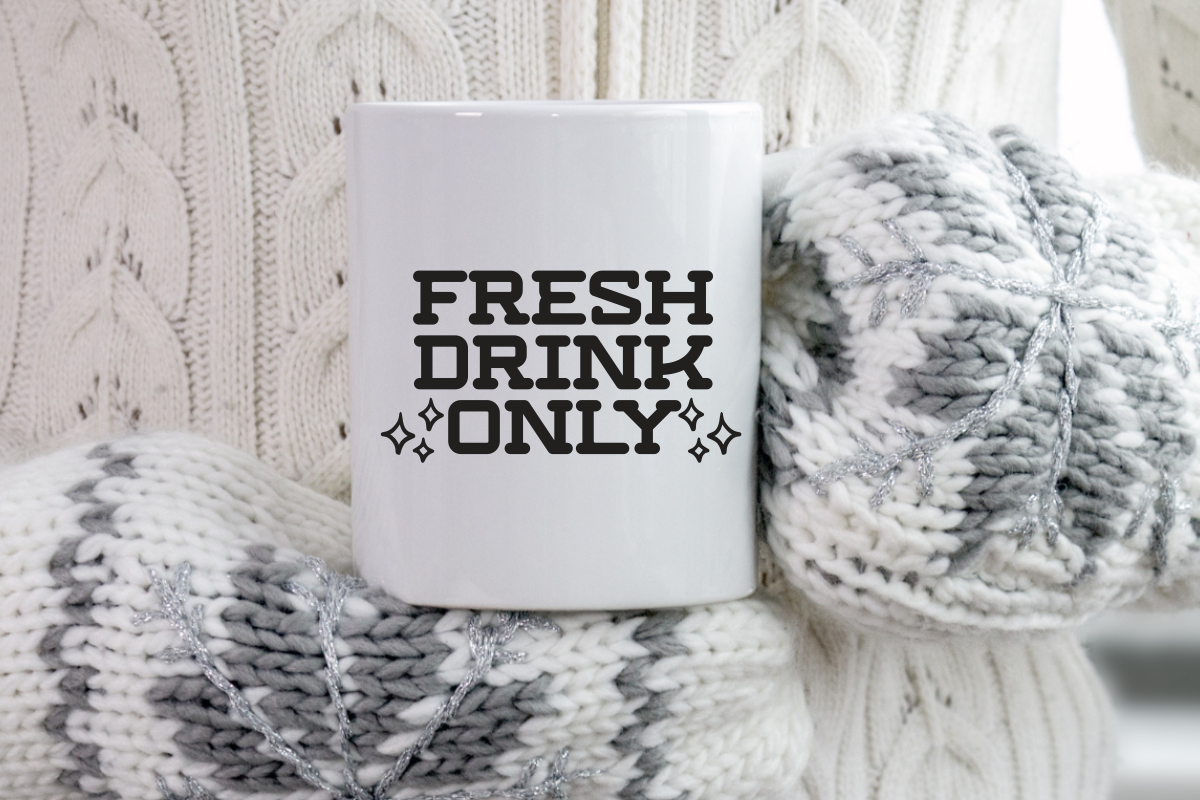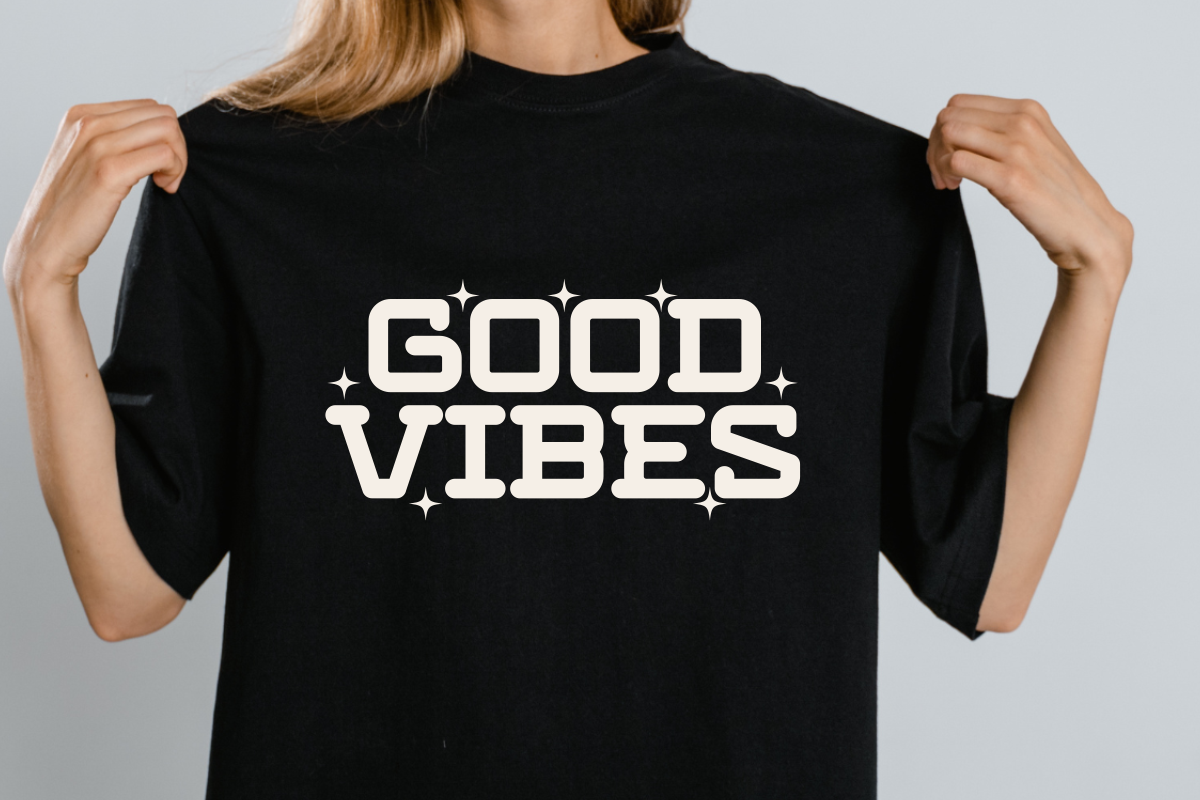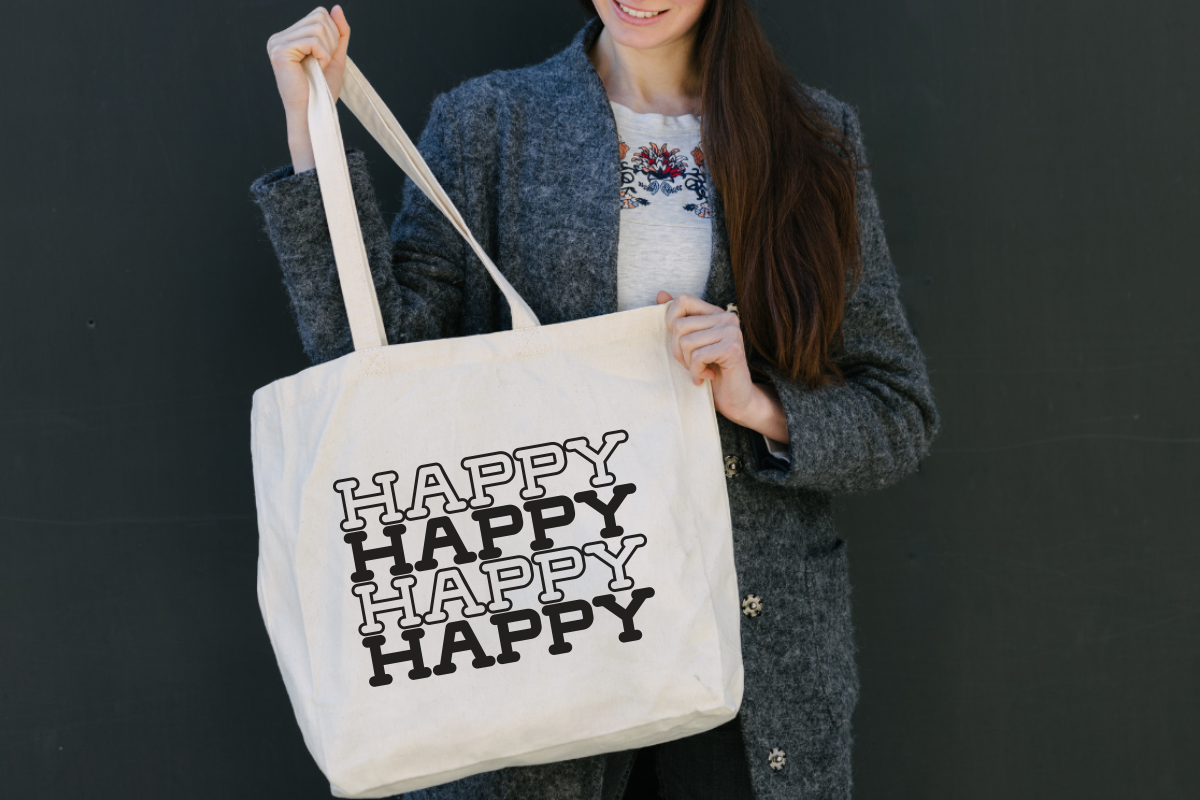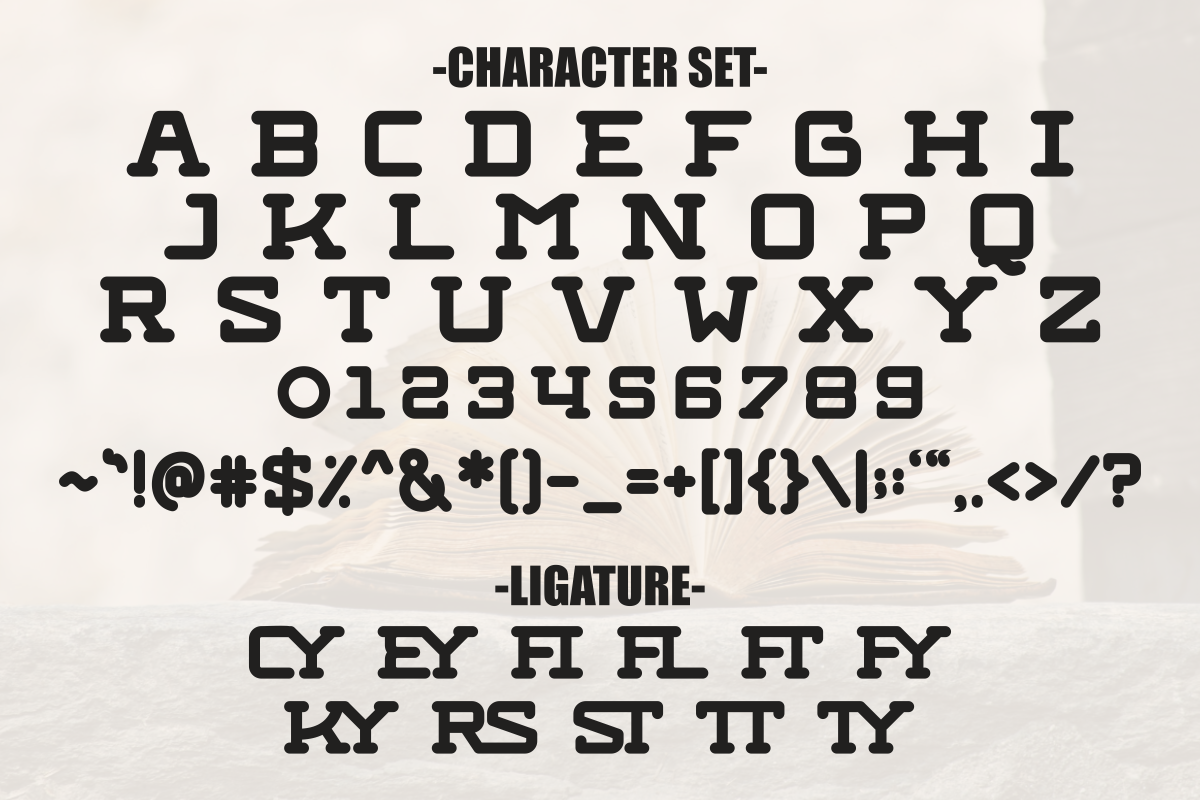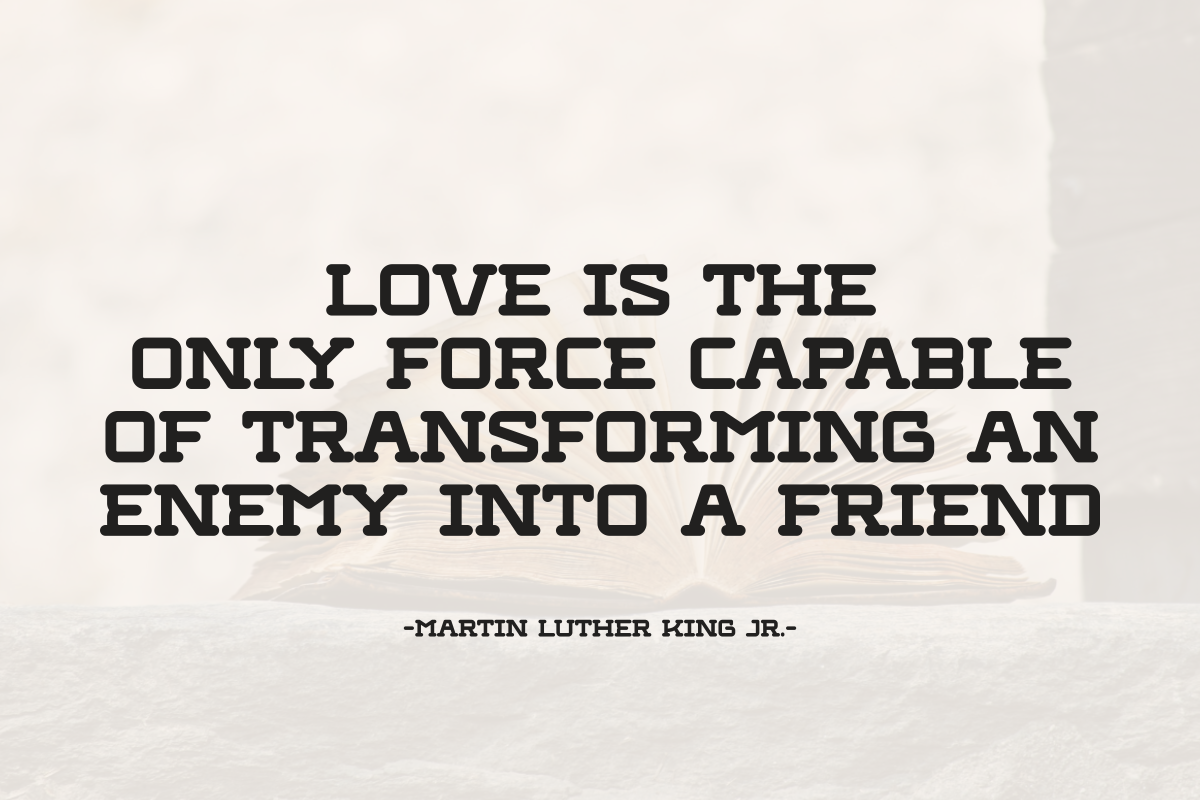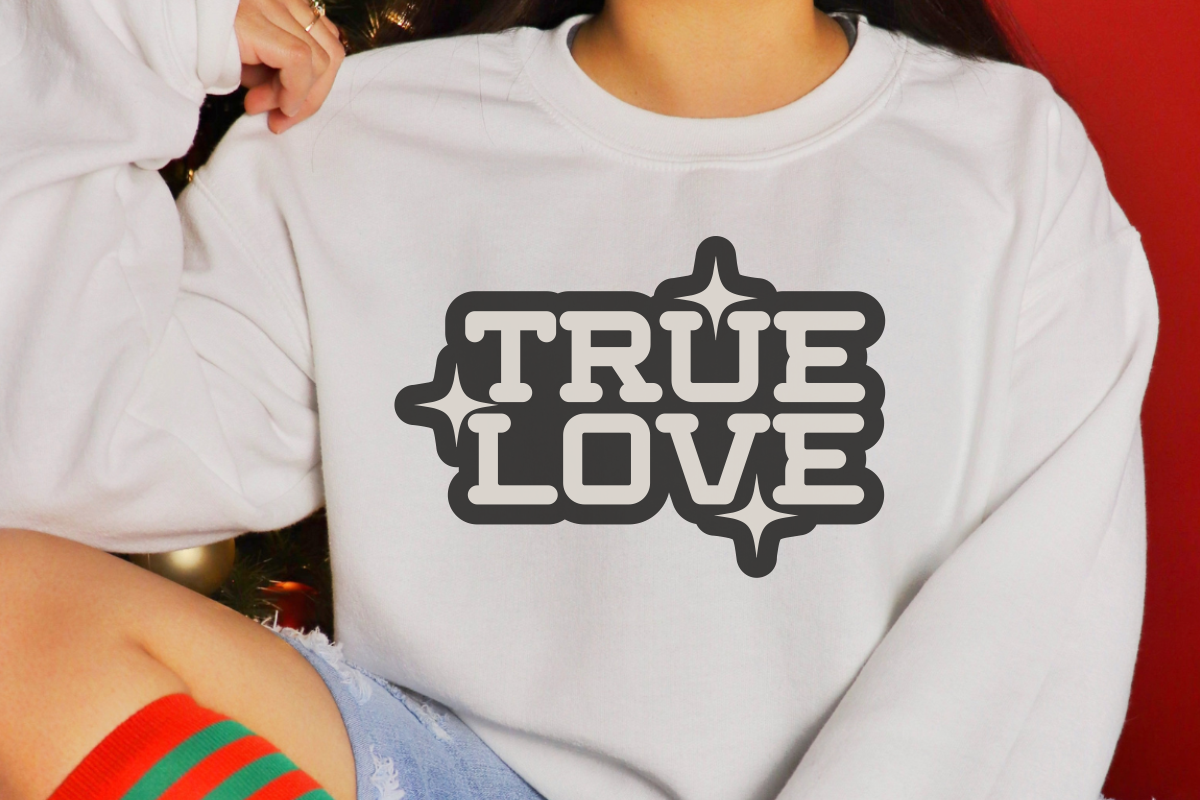
Stories Varsity - Playful Slab Serif
Stories Varsity is a playful and bold slab serif that captures the vintage spirit of college life. Its smooth curves and thick strokes make it perfect for quotes, posters and apparel. And also suitable for various topics such as Christmas, trump, thanksgiving, grinch, funky, laser, march and patriotic great dane.